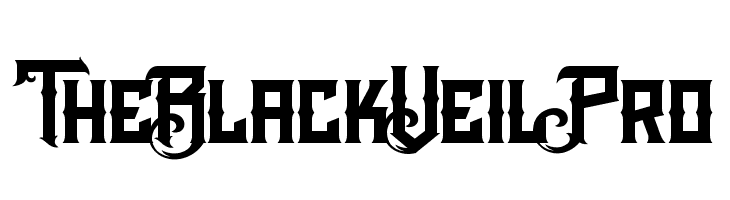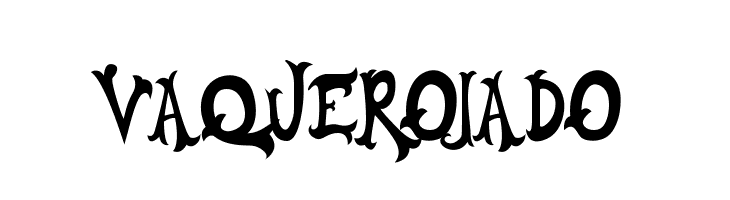
• Two Peaks
( Jaime Rangel Castro )
A bold, angular font with sharp, peak-like cut-out details.
• HelloBlueprint
( Jen Jones - www.jenjonesfonts.com )
A blueprint-inspired font with sketch-like details and bold outlines.
• LRT Nutshell Library
( Lauren Thompson - www.nymfont.com/ )
A bold, decorative font with intricate patterns and playful details.
• Vikingueiro Regular
( Lucas Gibim Rodrigues - lucasgirod.deviantart.com )
A decorative font with angular, runic-inspired details.
• VAQUEROJADO
( M#rm#n - Mar Man )
A bold, decorative font with intricate, gothic-inspired details.
• Arenosa Regular
( Mauricio Vides Anillo - www.behance.net/Mauricio-Vides )
A bold, decorative font with intricate details and high contrast.
• TheBlackVeilPro
( Mikrojihad Inc. - www.behance.net/mikrojihad )
A bold, Gothic-inspired font with intricate details and sharp edges.
• OctopustypeRegular
( Pedro Vitale )
A bold, blackletter font with sharp, angular strokes and intricate details.
• Evolve Inline
( Peter Olexa - www.dealjumbo.com )
A bold, decorative font with intricate inline details and a modern vintage style.
• Forest Regular
( Peter Olexa - www.dealjumbo.com )
A bold, decorative font with vintage flair and intricate details.